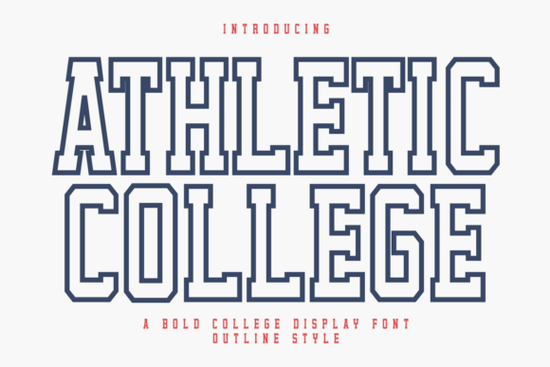
The Athletic College Outline Font is a standout choice for anyone looking to add a strong, classic feel to their design projects. This bold and powerful display font brings a vintage varsity aesthetic that works well in both digital and print formats. Whether you're designing t-shirts, posters, or custom gifts, the clean lines and blocky structure of this font make it easy to use and highly effective.
Designed with versatility in mind, the Athletic College Outline Font is ideal for graphic designers, print-on-demand sellers, and crafters who want to create eye-catching designs. Its outline style gives it a unique look that stands out while still maintaining readability. This makes it perfect for everything from sports-themed merchandise to school event promotions.
If you're looking for fonts that combine style with functionality, the Athletic College Outline Font is a great addition to your collection. It’s especially useful for those working on projects that require a strong visual impact, such as team uniforms, gym branding, or personalized gifts. The font’s classic design ensures it remains relevant across different trends and styles.
What Makes Athletic College Outline Font Stand Out?
The Athletic College Outline Font excels in its ability to blend traditional elements with modern design needs. Its bold structure and clear letterforms make it easy to read at various sizes, whether on a small tag or a large poster. This makes it a reliable option for both digital and physical applications.
One of the key features of this font is its outline style. This gives it a distinctive look that can be customized further depending on the project. For example, when used with vinyl cutting tools like Cricut or Silhouette, the outline adds depth and dimension to the final product. This makes it a favorite among crafters and DIY enthusiasts.
How to Use Athletic College Outline Font in Your Projects
Whether you’re creating t-shirt designs, custom stickers, or promotional materials, the Athletic College Outline Font can help you achieve a professional look. Its strong presence makes it ideal for headlines, logos, and any design that needs to grab attention. You can also pair it with other fonts to create a balanced and dynamic layout.
For print-on-demand sellers, this font is a valuable asset. It works well on apparel, mugs, and other products where a bold, readable font is essential. The outline style allows for flexibility in color choices, making it adaptable to different themes and brand identities.
If you're new to using display fonts, consider starting with simpler projects before moving to more complex designs. Experimenting with different sizes and placements can help you understand how the font performs in various contexts. This will also help you make the most of its unique characteristics.
As you continue to build your design toolkit, remember that choosing the right font can significantly impact the overall look and feel of your work. The Athletic College Outline Font is a versatile and reliable choice that can elevate your projects with its strong, classic style.
- Try using the font on different background colors to see how it looks in various settings.
- Experiment with combining it with other fonts for a more dynamic design.